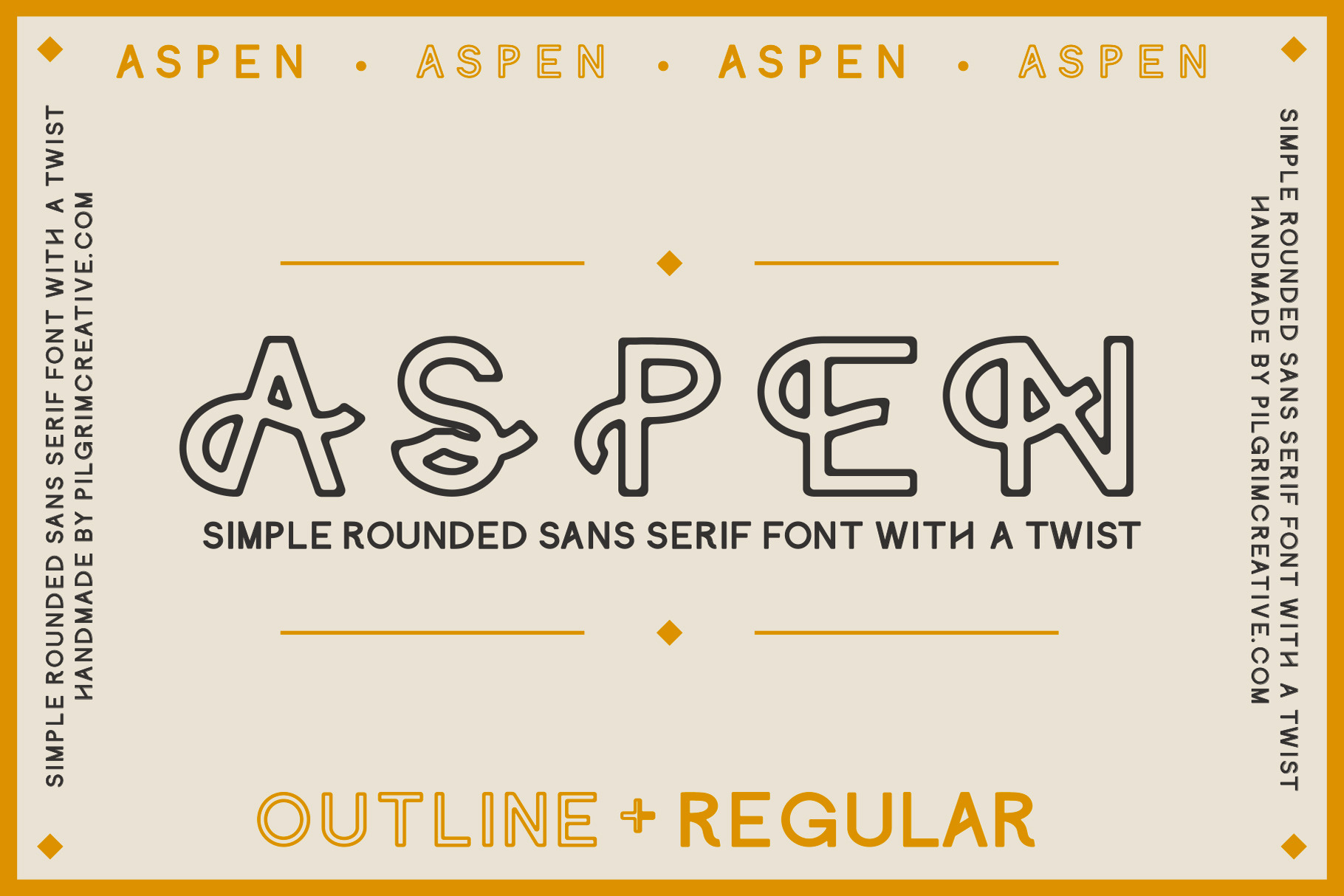
Aspen Font
A simple sans serif font with a twist.
A fun way to spice up a simple sans serif font. The stylized versions add a simple, minimal, and clean variation to make your sans serif font stand out. I hope you enjoy this font as much as I enjoyed creating it. Feel free to reach out if you have any issues!